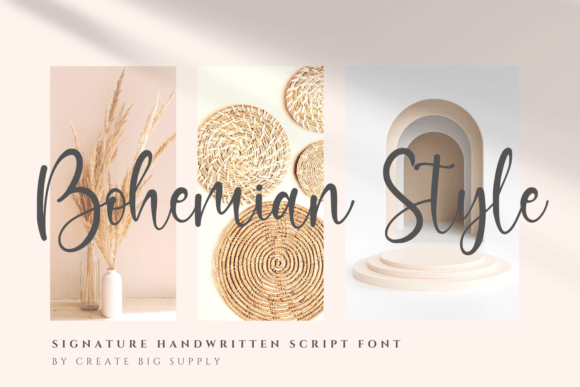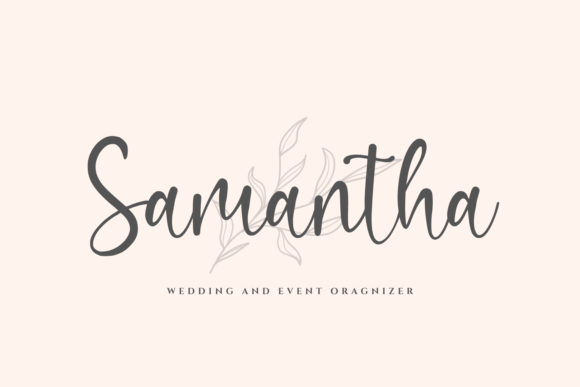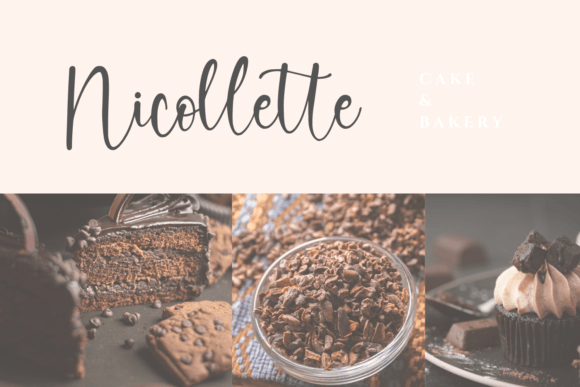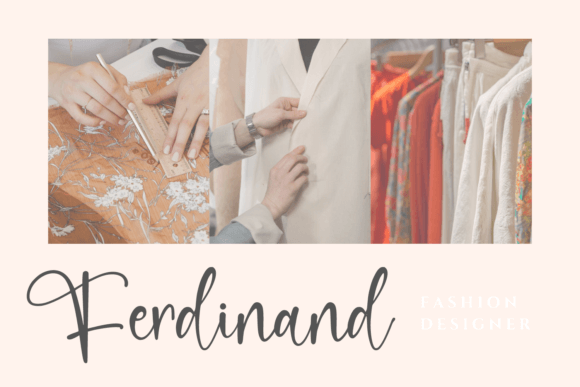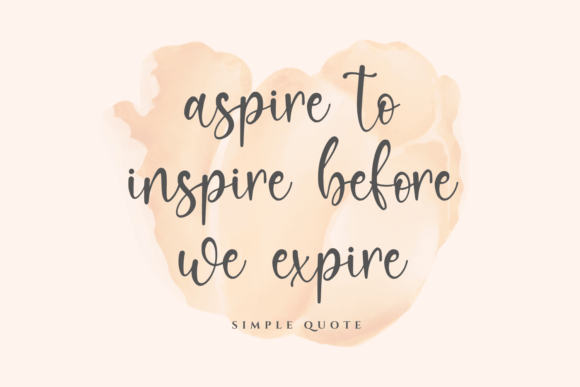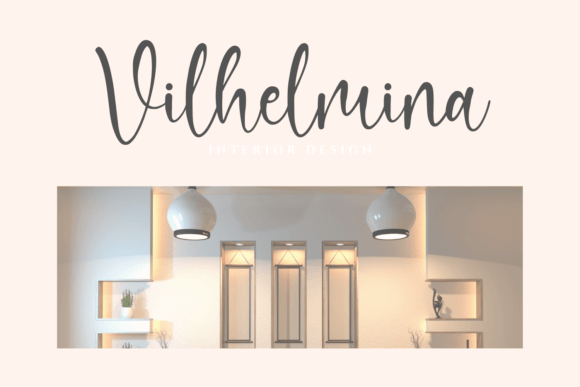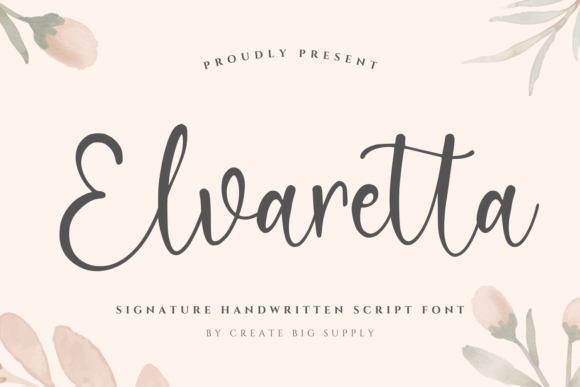
Unleash Your Creativity with Elvaretta Font: The Ultimate Script Handwriting Font
Are you a designer, crafty person, or business owner looking to add a personal touch to your creative projects? Look no further than Elvaretta Font, a captivating script handwriting font that is sure to elevate your designs to the next level. With its fluid strokes and charming style, Elvaretta Font is the perfect addition to any project, whether it’s invitations, branding, packaging, or more.
What is Elvaretta Font?
Elvaretta Font is a beautifully designed script handwriting font that exudes elegance and sophistication. Its fluid strokes and charming style make it perfect for a wide range of creative projects, from formal invitations to business branding. With Elvaretta Font, you can add a personal touch to your designs and make them stand out from the crowd.
Key Features of Elvaretta Font
- Fluid Strokes: Elvaretta Font features fluid strokes that give it a natural, handwritten look.
- Charming Style: The font’s charming style makes it perfect for a wide range of creative projects, from formal to informal.
- Script Handwriting Font: Elvaretta Font is a script handwriting font that adds a personal touch to any design.
- Versatile: The font is versatile and can be used for a wide range of projects, including invitations, branding, packaging, and more.
Benefits of Using Elvaretta Font
Using Elvaretta Font in your designs can have numerous benefits. Here are a few:
- Adds a Personal Touch: Elvaretta Font adds a personal touch to your designs, making them more relatable and engaging.
- Enhances Creativity: The font’s fluid strokes and charming style can inspire creativity and help you think outside the box.
- Perfect for Branding: Elvaretta Font is perfect for branding projects, as it can help create a unique and memorable identity for your business.
- Easy to Read: The font is easy to read, making it perfect for body text and headings.
How to Use Elvaretta Font
Using Elvaretta Font is easy. Here are a few tips to get you started:
- Pair it with Other Fonts: Pair Elvaretta Font with other fonts to create a unique and visually appealing design.
- Use it for Headings: Use Elvaretta Font for headings and titles to add a personal touch to your designs.
- Experiment with Colors: Experiment with different colors to find the perfect combination that complements Elvaretta Font.
Who Can Benefit from Elvaretta Font?
Elvaretta Font is perfect for a wide range of designers, crafters, and business owners, including:
- Graphic Designers: Graphic designers can use Elvaretta Font to create stunning designs for clients.
- Crafters: Crafters can use Elvaretta Font to add a personal touch to their handmade products.
- Business Owners: Business owners can use Elvaretta Font to create a unique and memorable brand identity.
- Stationery Designers: Stationery designers can use Elvaretta Font to create beautiful and elegant stationery sets.
| Font Name | Elvaretta Font |
| Author | Create Big Supply |
In conclusion, Elvaretta Font is a captivating script handwriting font that can add a personal touch to any design. With its fluid strokes and charming style, it’s perfect for a wide range of creative projects, from formal invitations to business branding. Whether you’re a designer, crafty person, or business owner, Elvaretta Font is sure to unleash your creativity and help you create stunning designs that stand out from the crowd.